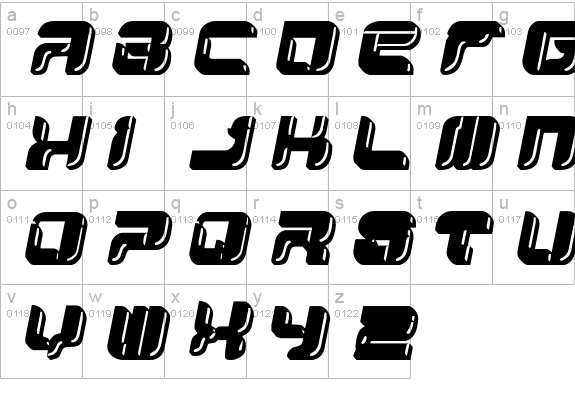
YUM YUM Font Details
YUM YUM font is a delightful and playful typeface that is sure to add a touch of whimsy to any design project. With its rounded edges and smooth curves, YUM YUM exudes a sense of fun and creativity. This font is perfect for a variety of uses, from posters and invitations to branding and packaging. The best part? YUM YUM font is completely free to download at FontsMarket.com. That's right, you can add this charming font to your collection without spending a dime. So why wait? Bring a dash of joy to your designs with YUM YUM font today!